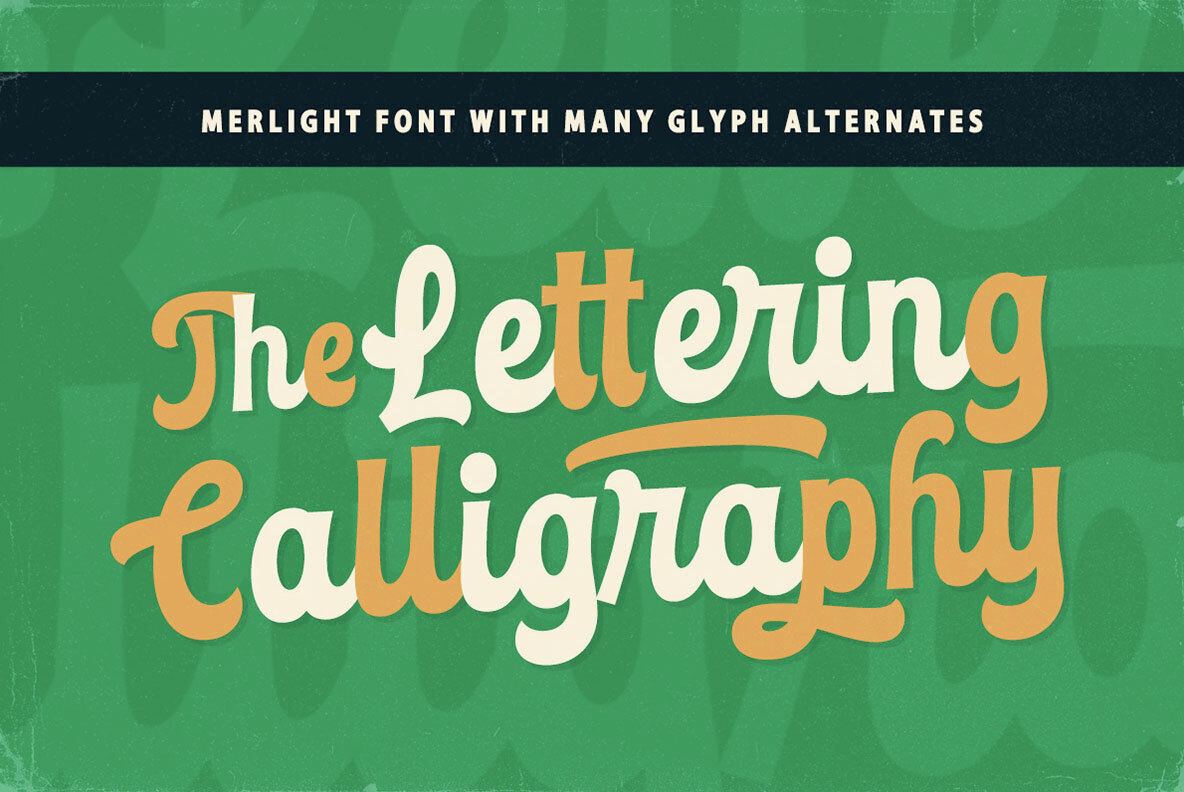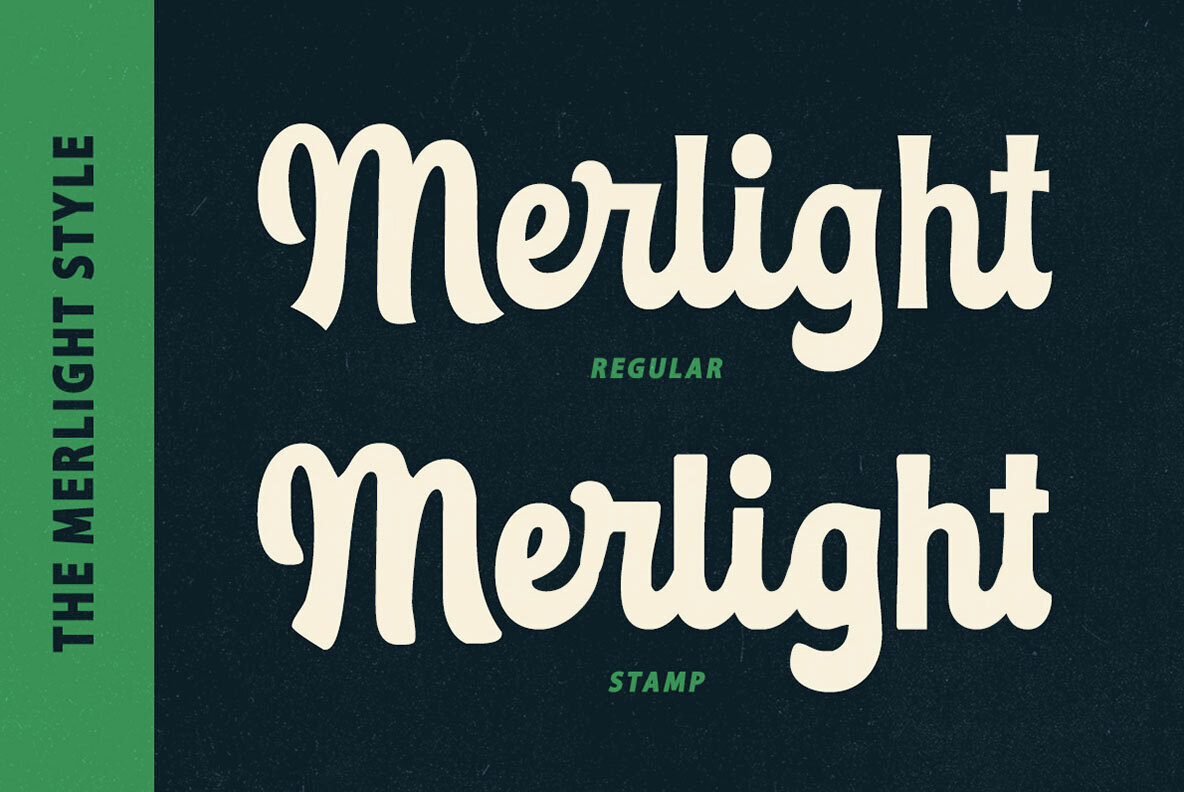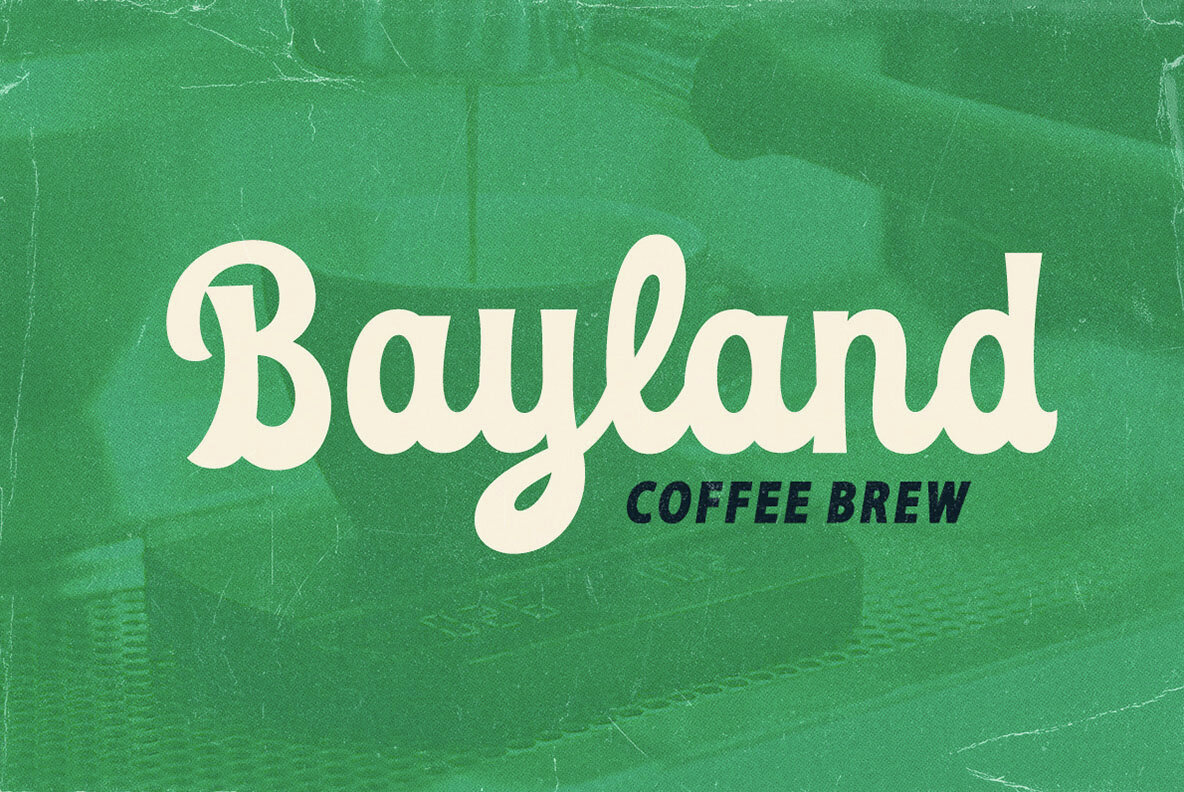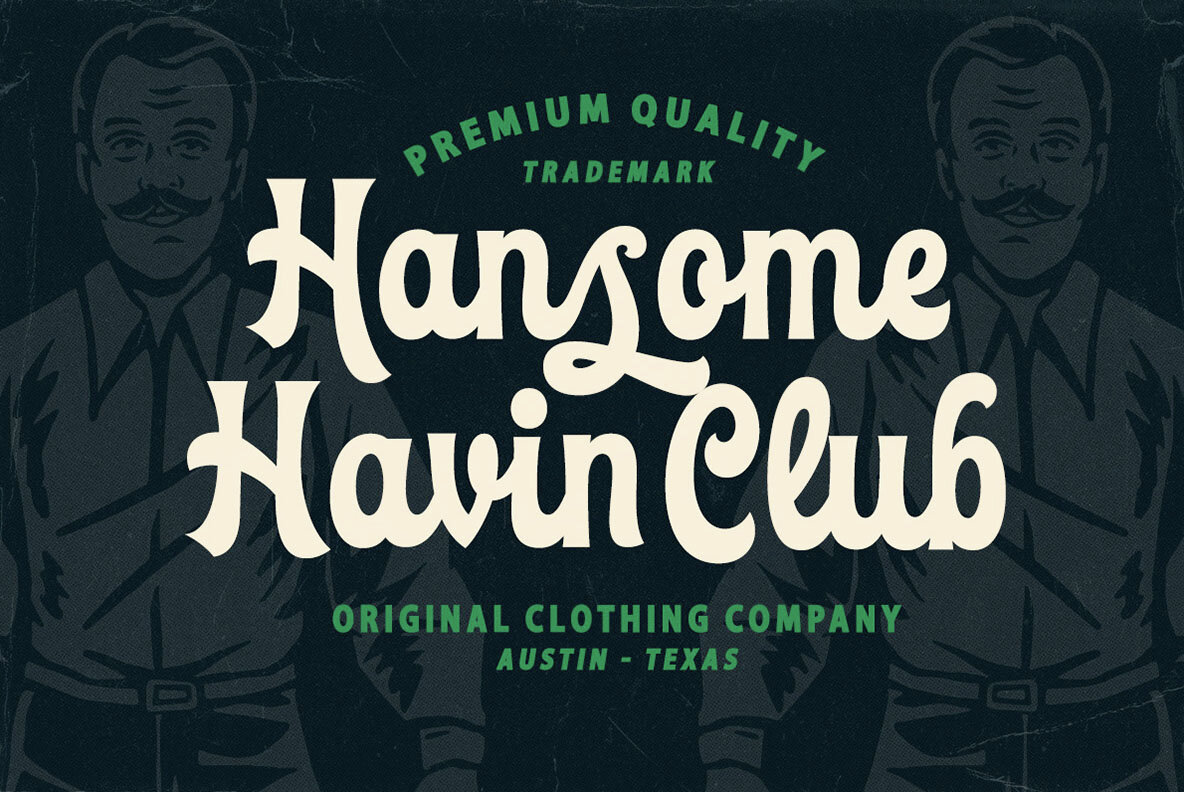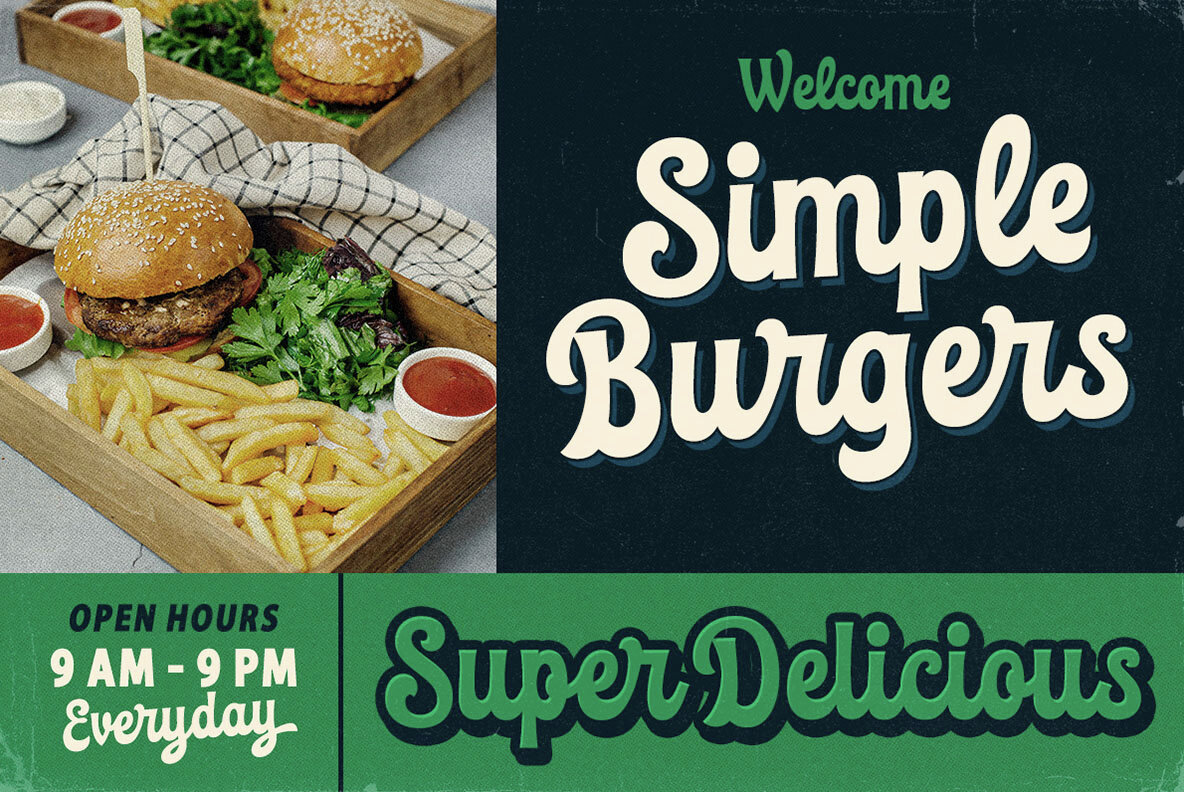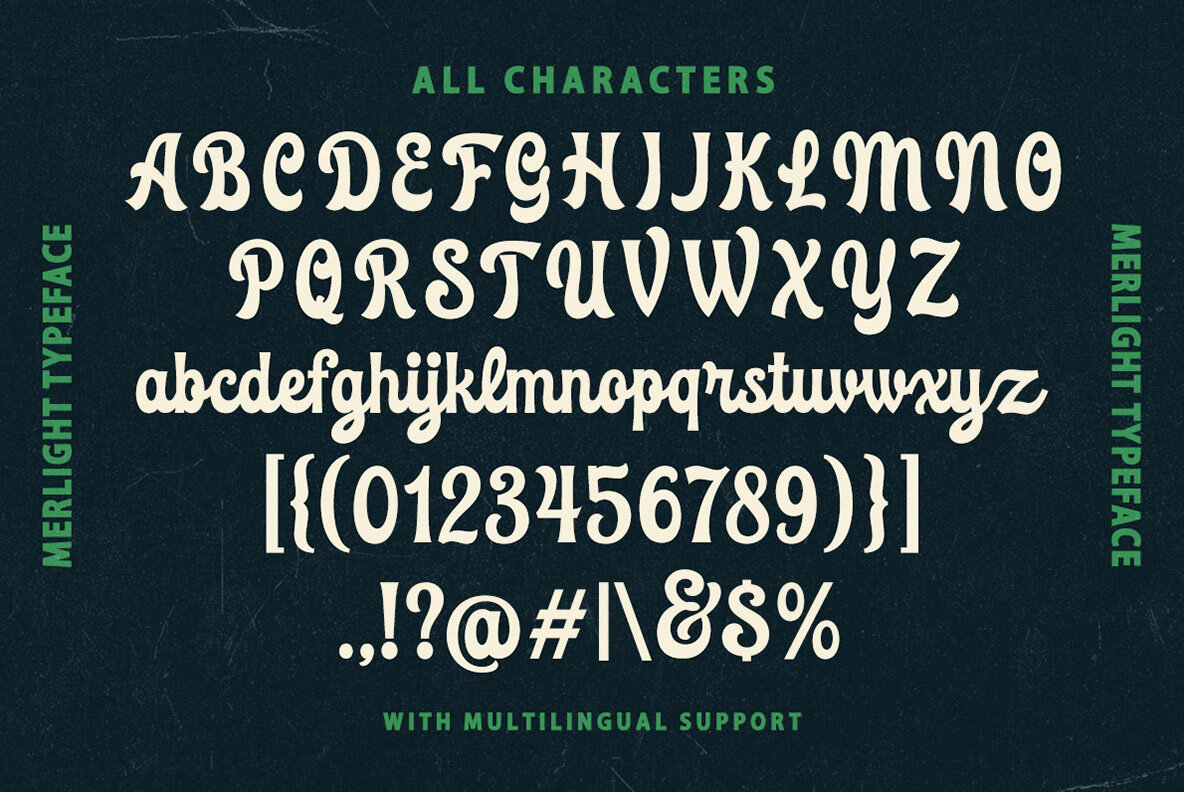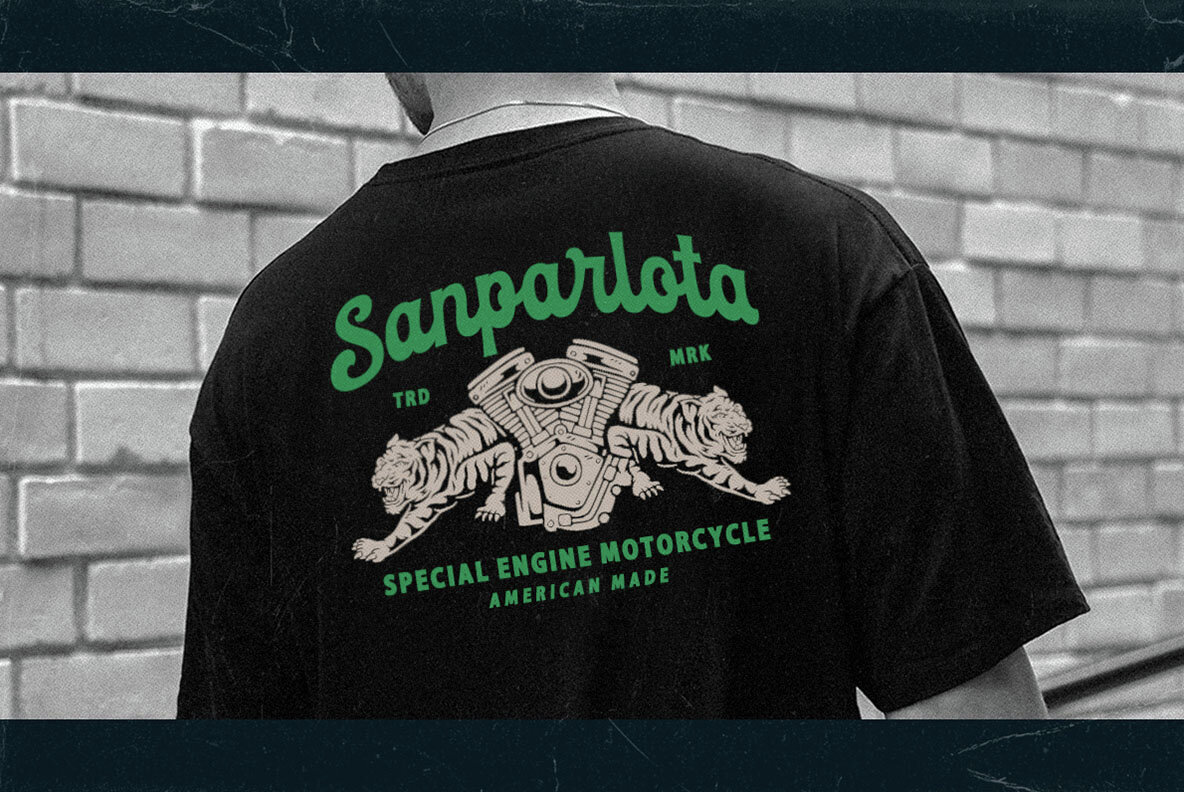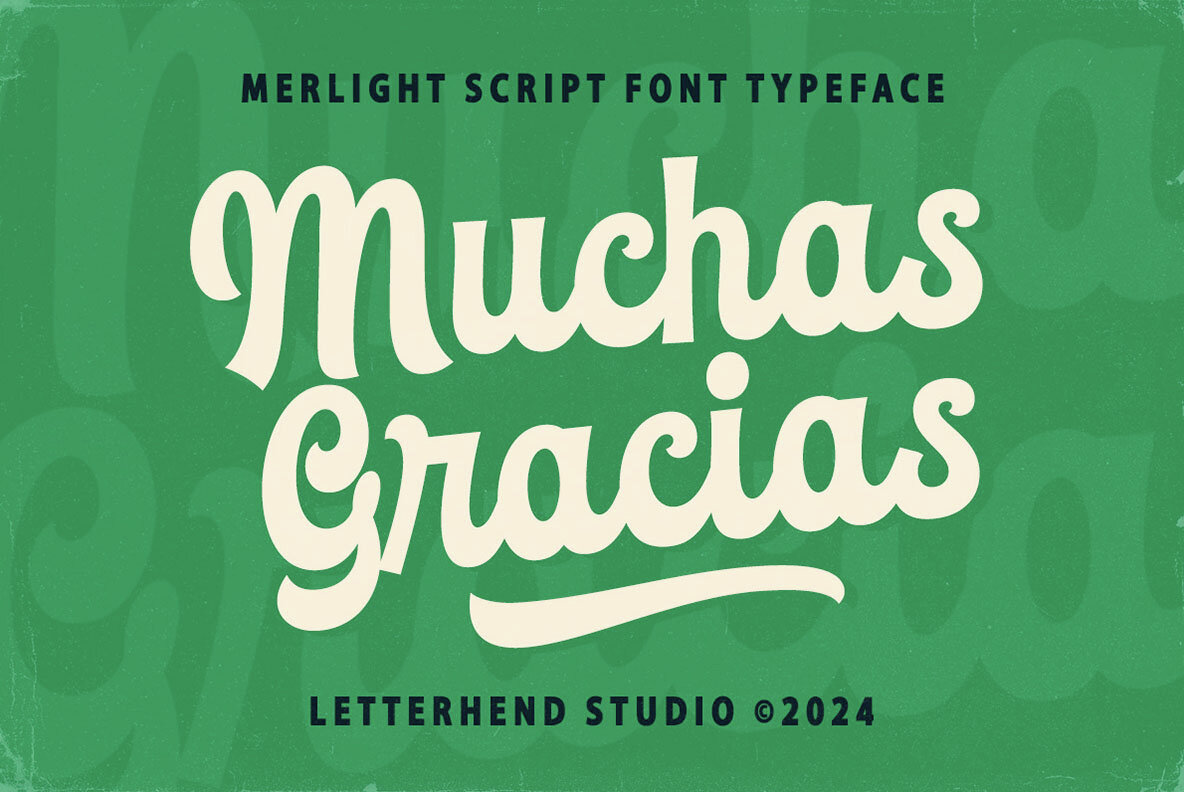
Merlight Font
Discover a bold script font with a vintage flair, perfect for creating eye-catching designs. This typeface is ideal for crafting distinctive logos, headlines, signage, and formal elements like invitations and labels. It brings a unique touch to magazines, books, greeting and wedding cards, packaging, fashion plans, make-up designs, stationery, novels, and various types of advertisements. With its versatile style, this font effortlessly enhances any project.
This font includes essential features such as uppercase and lowercase characters, numbers, punctuation, alternates, and ligatures. It also offers multilingual support and is PUA encoded, ensuring ease of use. To unlock its full potential, using a program that supports OpenType features and Glyphs panels, such as Adobe applications or Corel Draw, is highly recommended. Explore a range of glyph variations to tailor your designs to perfection.